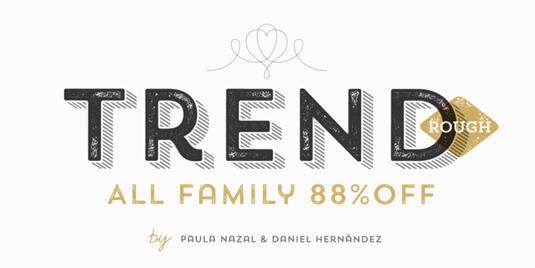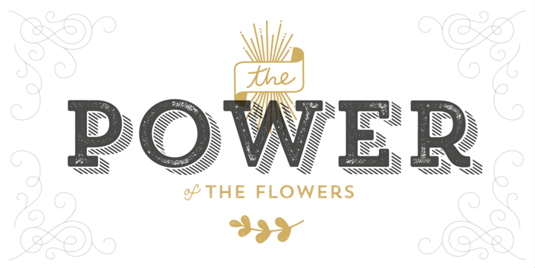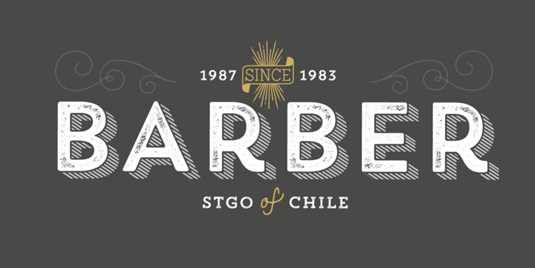
Font of the day: Trend Rough
Every day we showcase the best fonts on the web. Today it's Trend Rough by Daniel Hernández and Paula Nazal Selaive.
Trend Rough by Latinotype
A layered font with a sans and slab basis, Trend Rough is designed by Daniel Hernández and Paula Nazal Selaive and published by Latinotype. Available from MyFonts, the design is described thus: "Trend tries to capture the aesthetics of fashion or even fashion itself, integrating elements of a very popular and current trend. It is a typeface designed to be used without need to add anything external to it." We're trying not to say 'hipster', but...